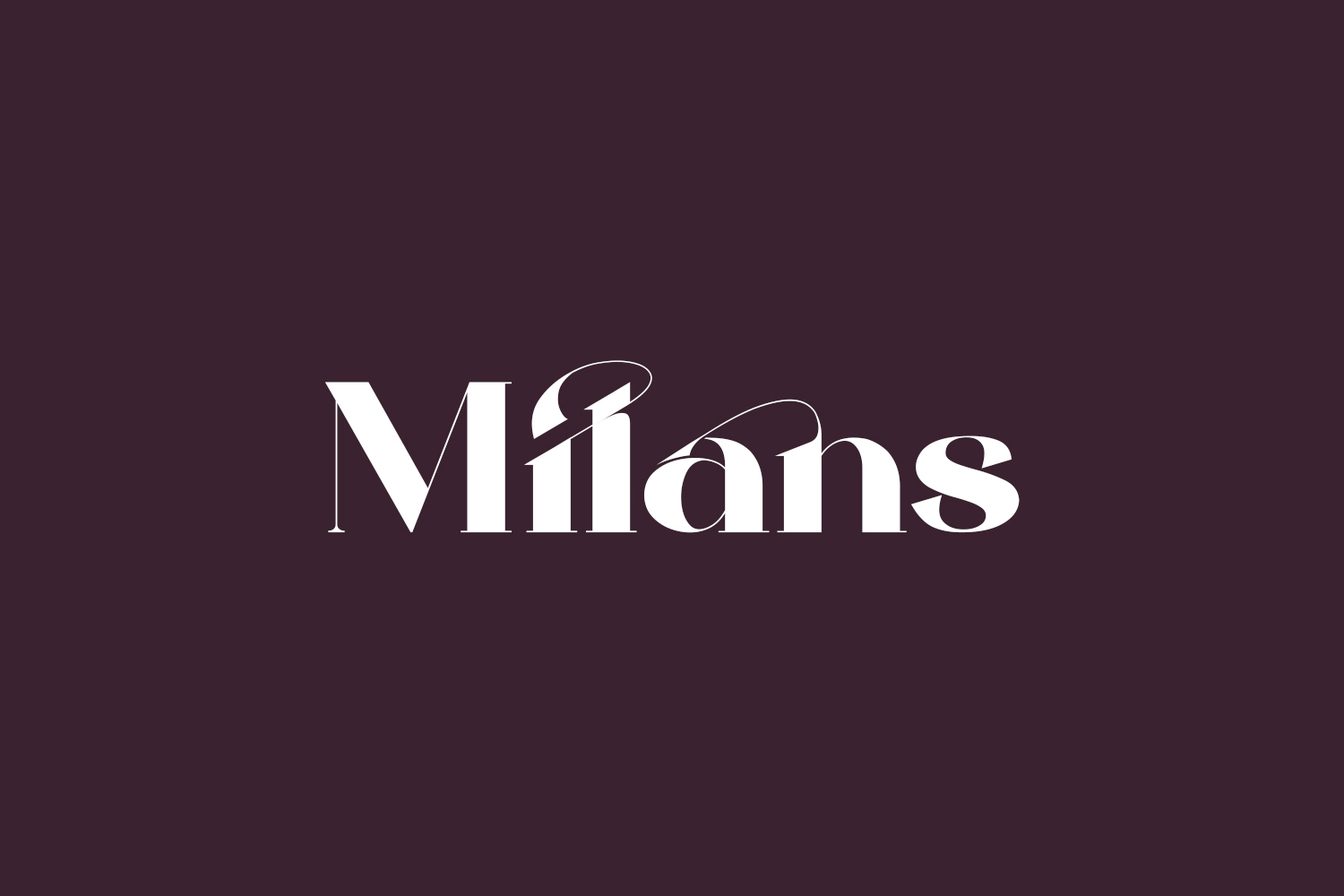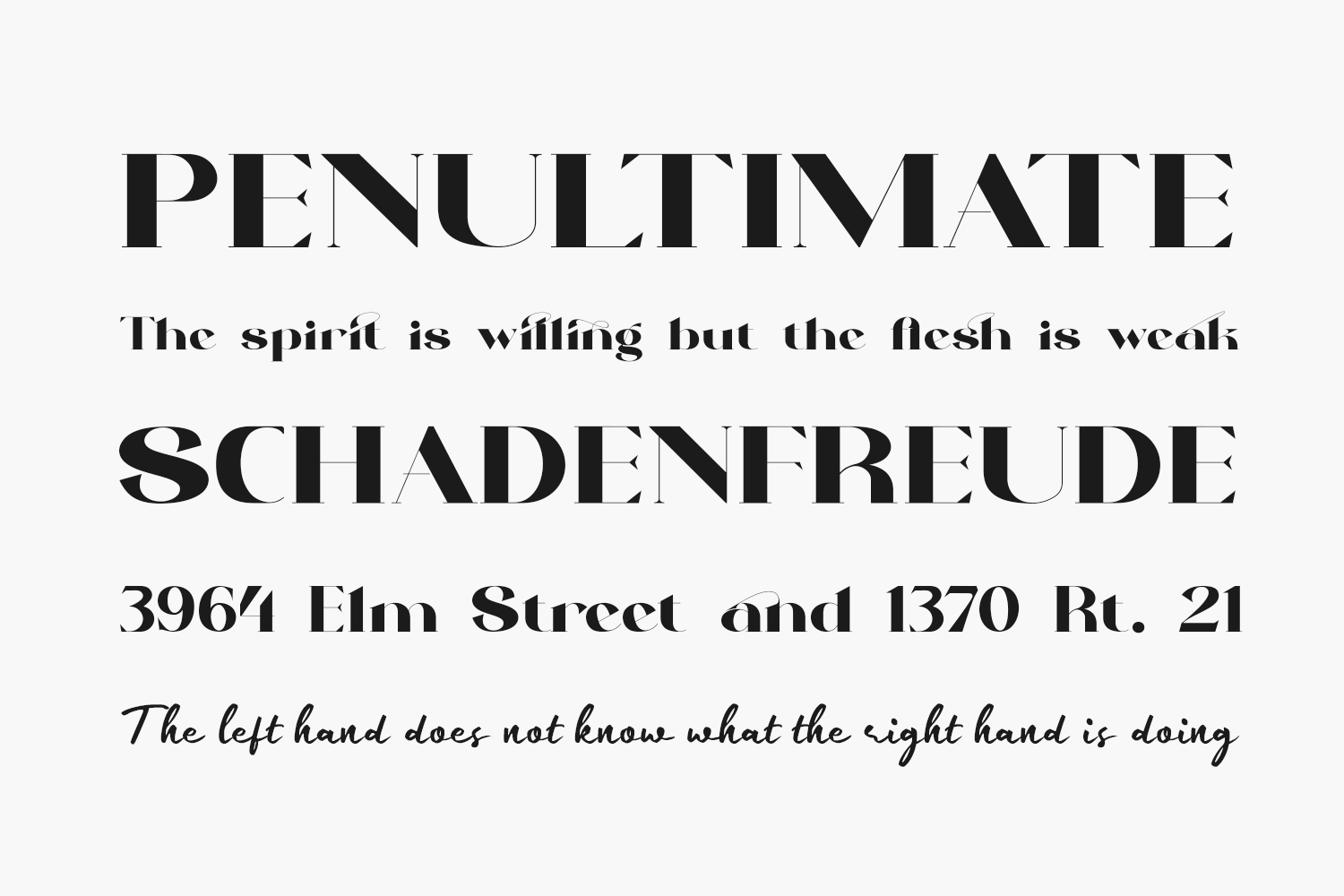
Milans Free Font is a bold and thick-lettered serif font. Milans Free Font is free for personal use only. Please purchase the full version for commercial use.